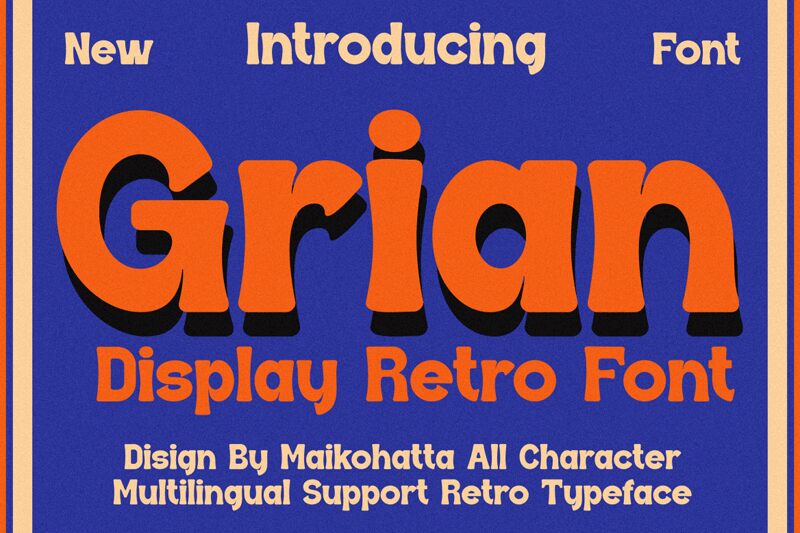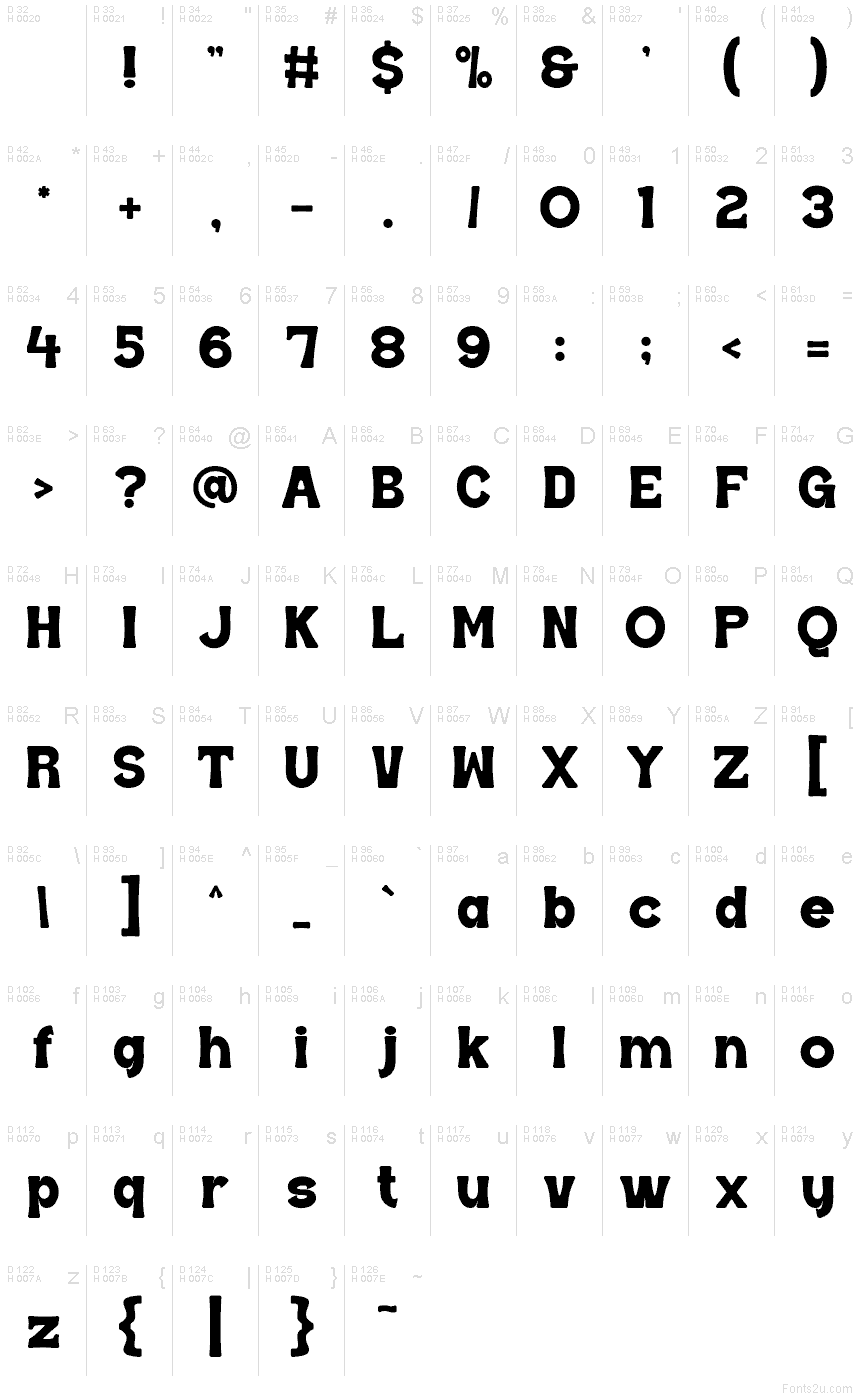
Grian
Grian font by Gilang Ternadho is a free decorative display typeface with big, inky curves and chunky, pebble-like shapes that feel almost hand-sculpted. Its letters are wide, friendly, and softly rounded, with thick strokes that lock together in a bold, seamless word shape. There’s a playful weight to it—like foam letters or cut-out vinyl—that makes every title feel warm, loud, and a little bit retro without tipping into kitsch.
Using Grian, headlines instantly gain a strong, memorable silhouette that reads clearly even at a glance, making this free font a natural fit for posters, kids’ products, cafe menus, festival branding, packaging, and bold social graphics. It shines when you let it go big, then pair it with a clean, neutral sans-serif for body text to keep everything readable and balanced.